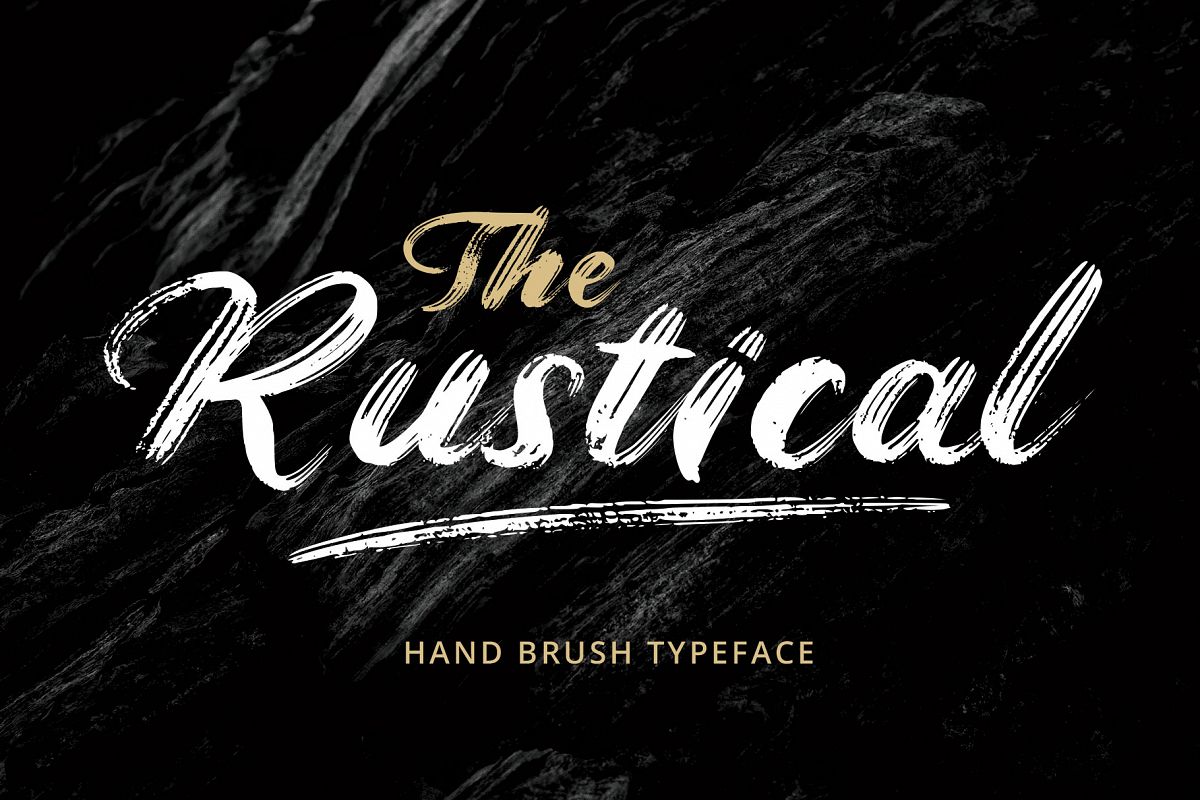
Rustical Brush Font
Rustical
Rustical is handwritten brush font. It will be suitable for branding design, menu designs, product packaging, quote or simply design with stylish text overlay to any background image.
• uppercase & lowercase letters
• numbers & punctuation
• multi language support